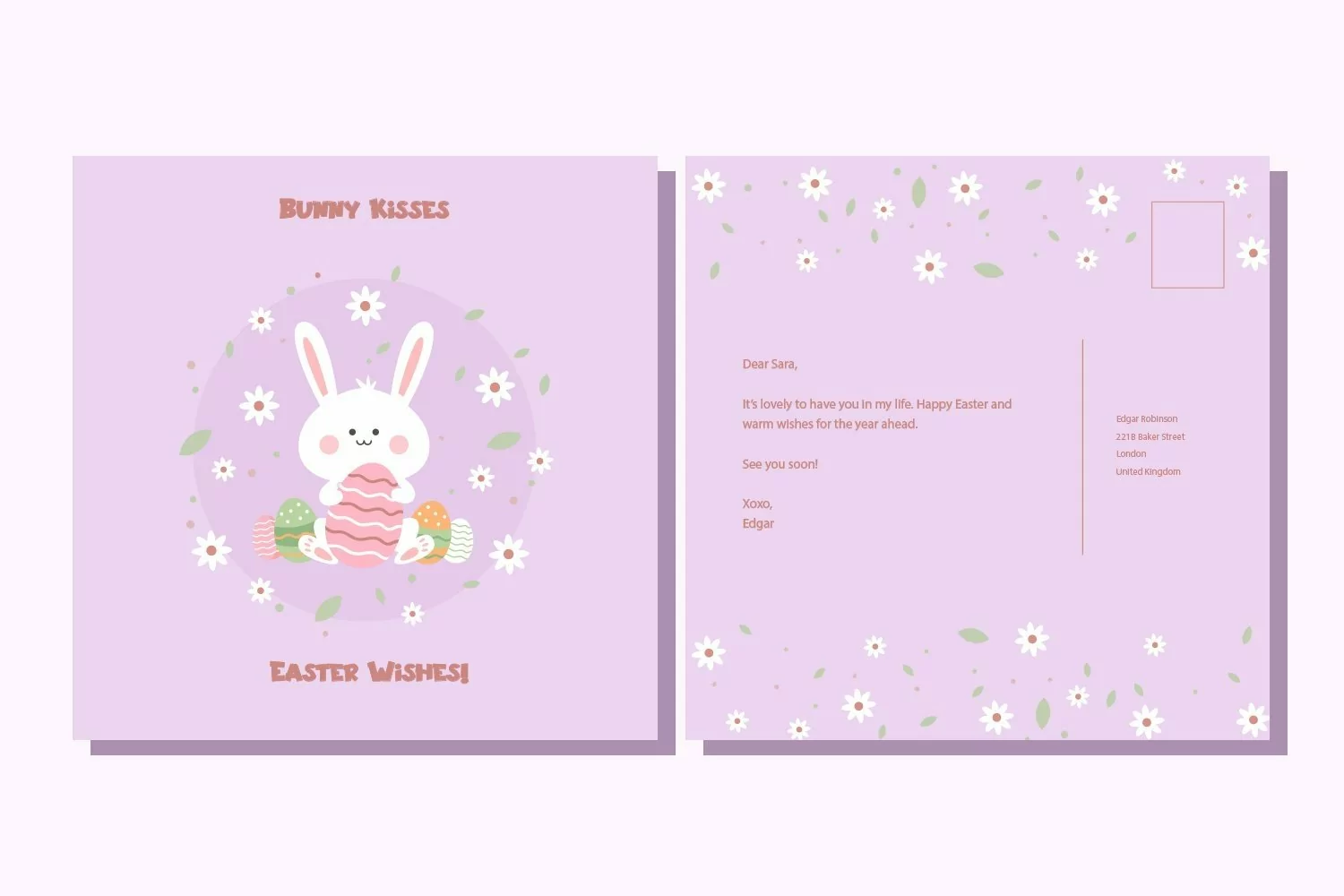
Web Font Special Carrot - Easter Display Font
Special Carrot - Easter Display Font that contain lowercase, uppercase, symbol, and also support multi language. There’s a lot ligatures in this font. This Font also comes with ligatures, alternates and many more. this font suitable for fashion, branding, catalog and other design what you want.